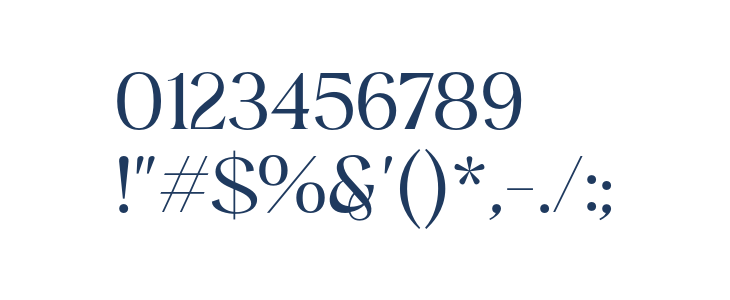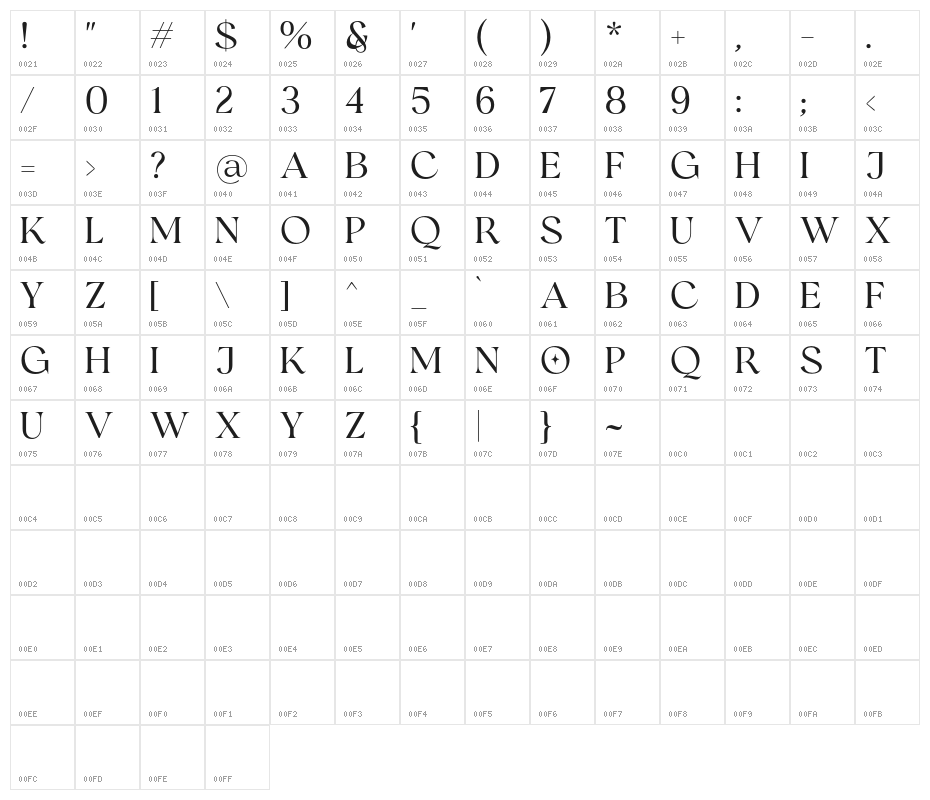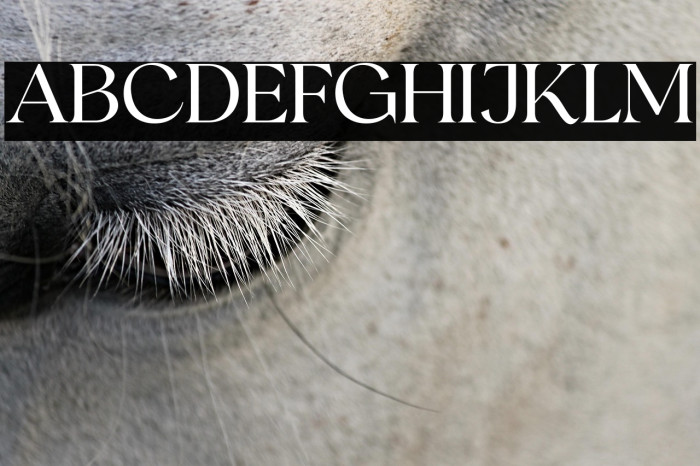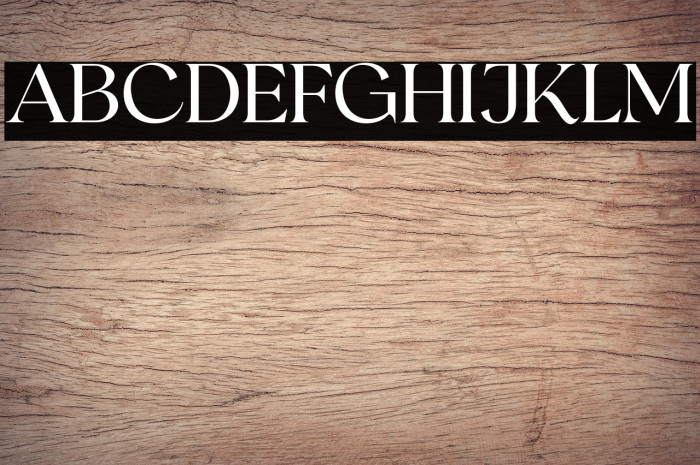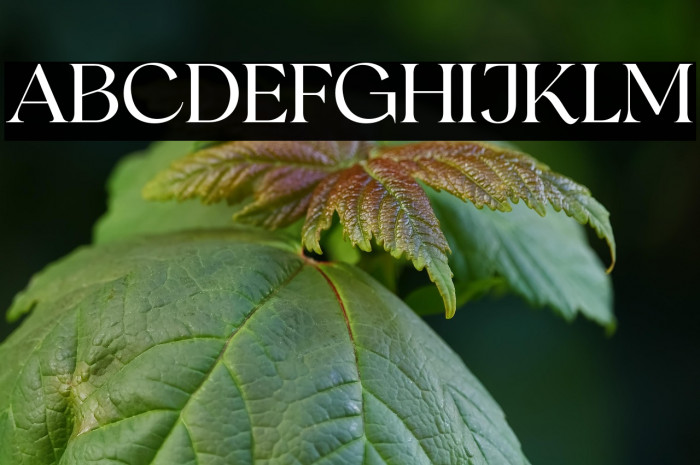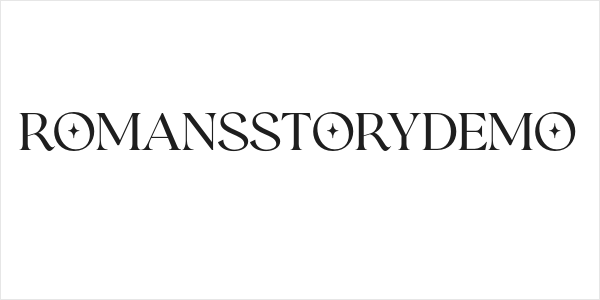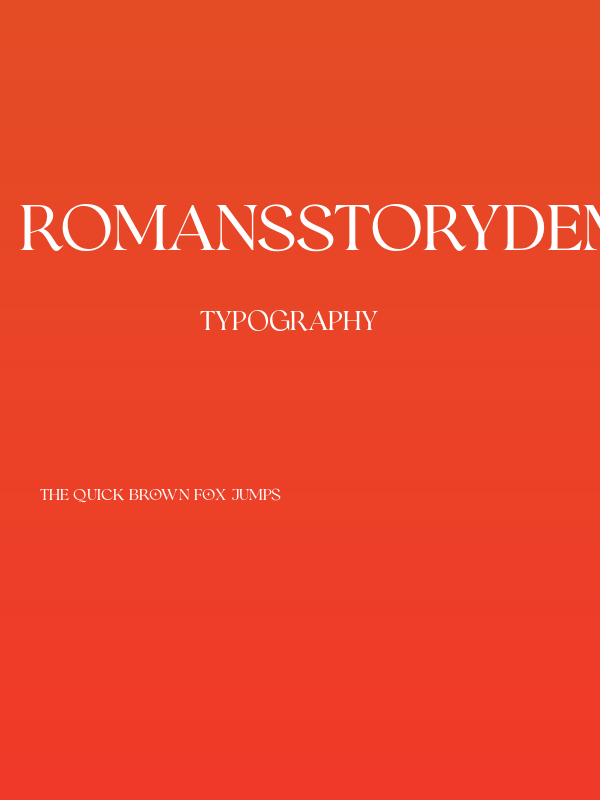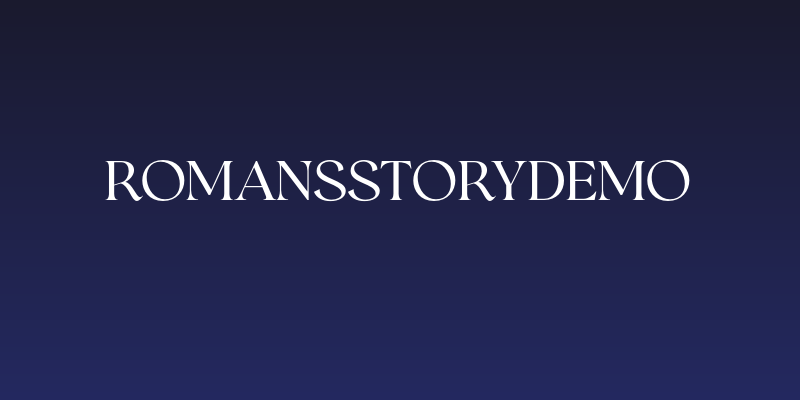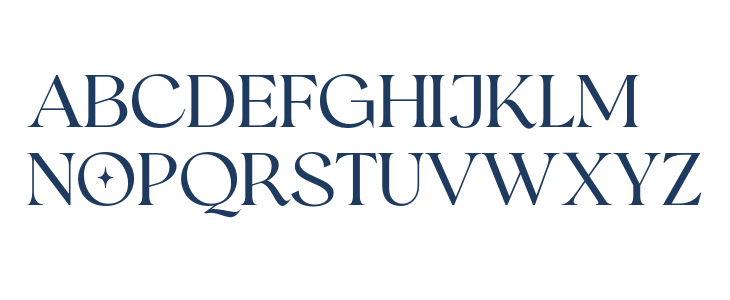
RomansStoryDemo Font
RomansStoryDemo Description
This font embodies a classic serif style with elegant, sharp serifs and a sophisticated appearance. The uppercase letters are bold and commanding, while the lowercase letters maintain a refined and balanced look. The numerals are clear and distinct, with a traditional feel that complements the overall design. Special characters are well-integrated, adding to the font's versatility. The strokes vary in thickness, providing a medium contrast that enhances readability while maintaining a stylish aesthetic. This font is suitable for projects that require a touch of elegance and formality.